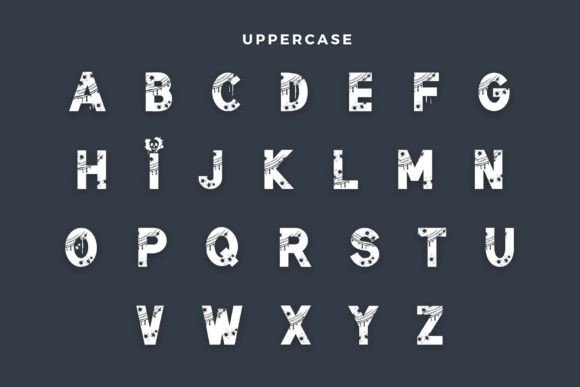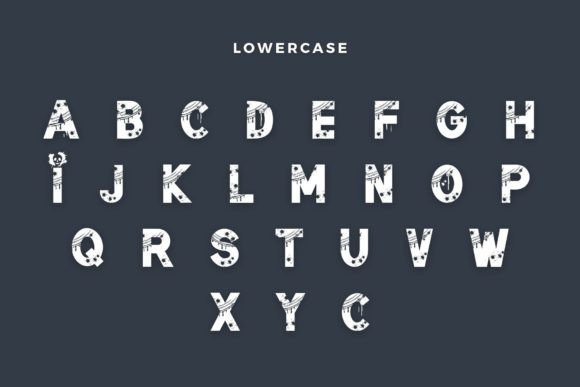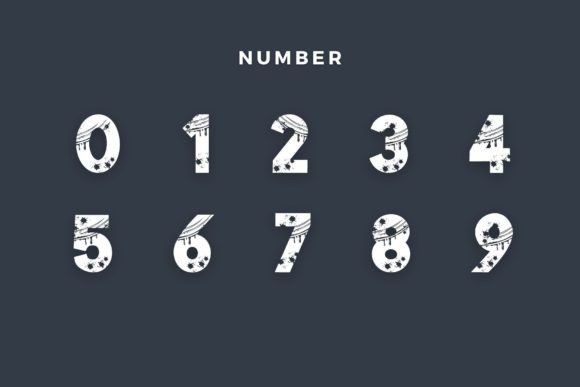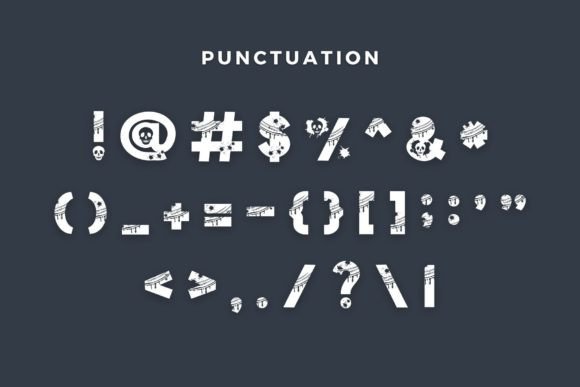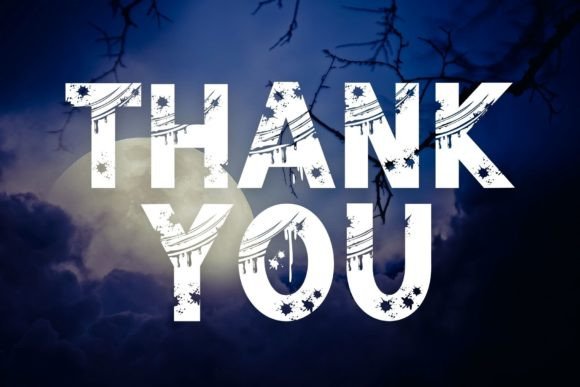
Introduction to Blood Spatter Font
Blood Spatter is a scary and fun decorative font.
It embodies playfulness and authenticity and is the perfect choice for all your favorite Halloween projects, or even for blog posts, logos, branding, ads, invitations, greeting cards, planners, photo albums, decorations, and much more Add it to any of your designs, and enjoy the results.